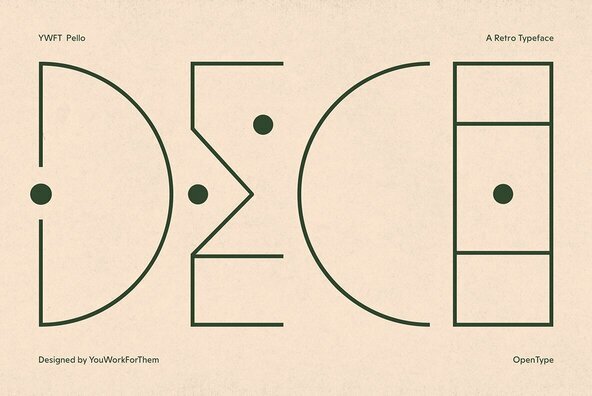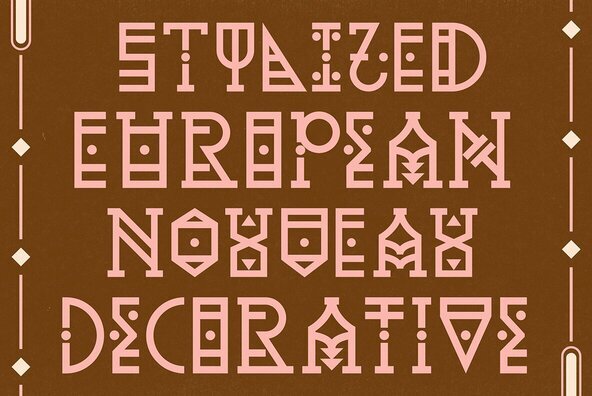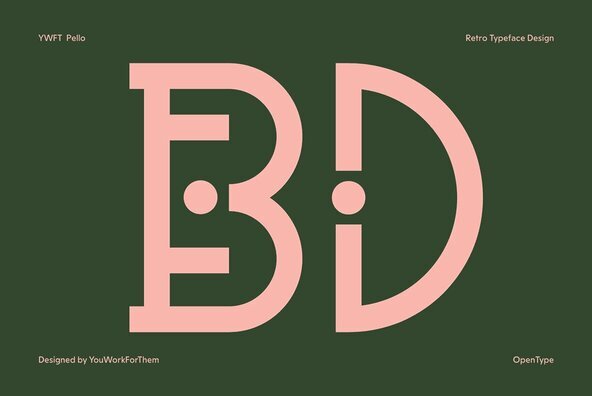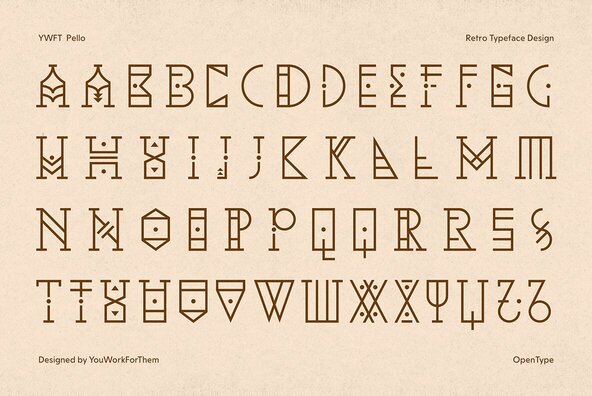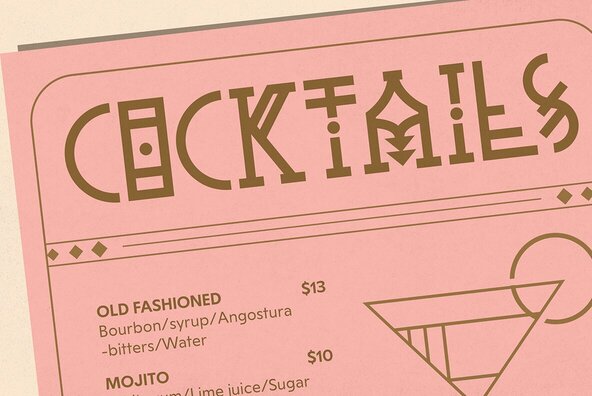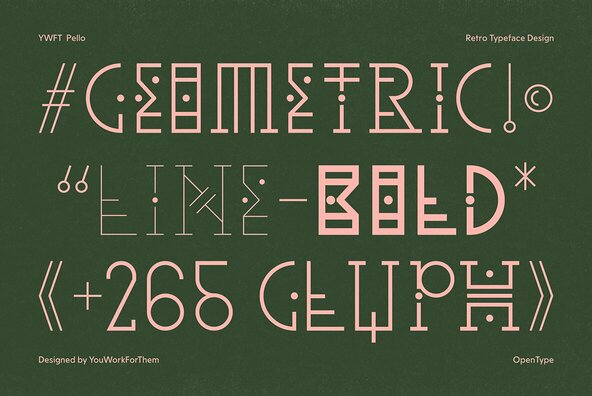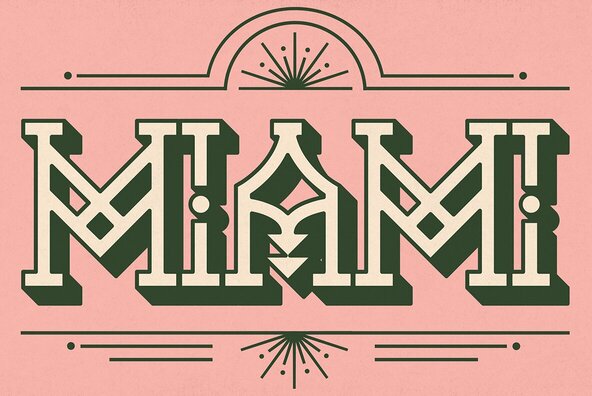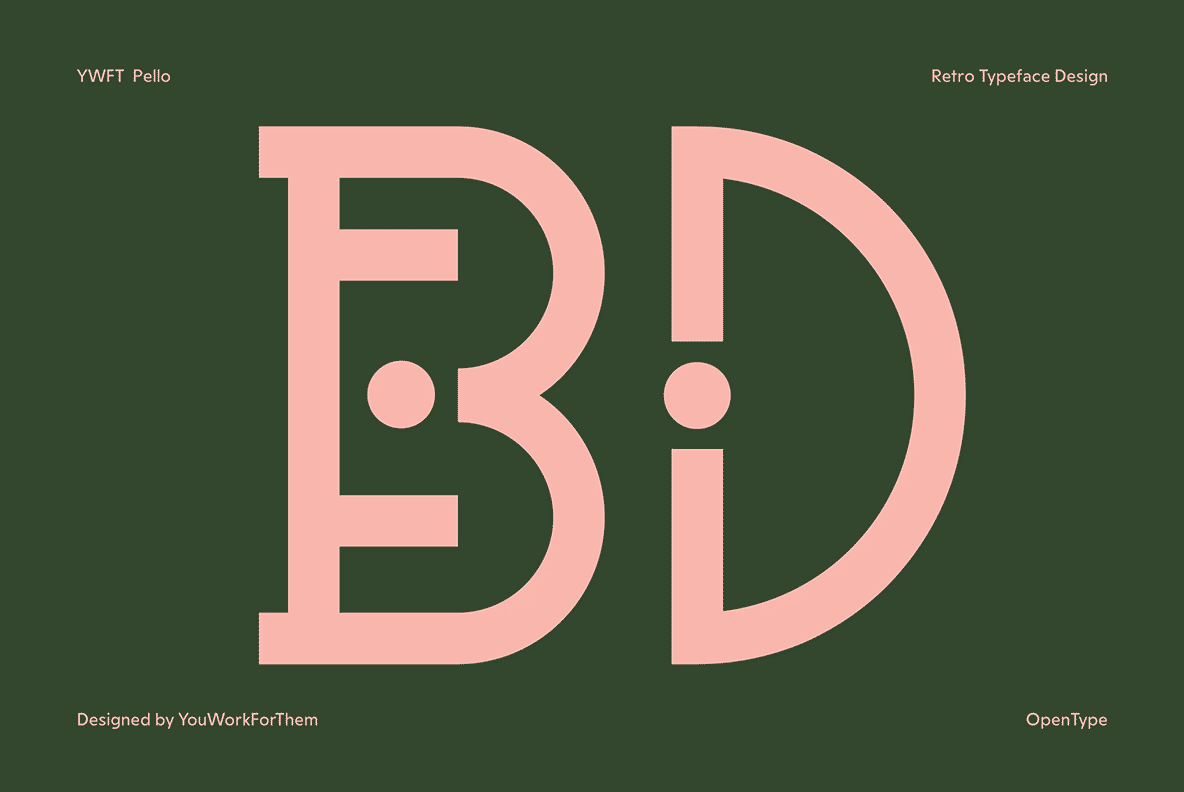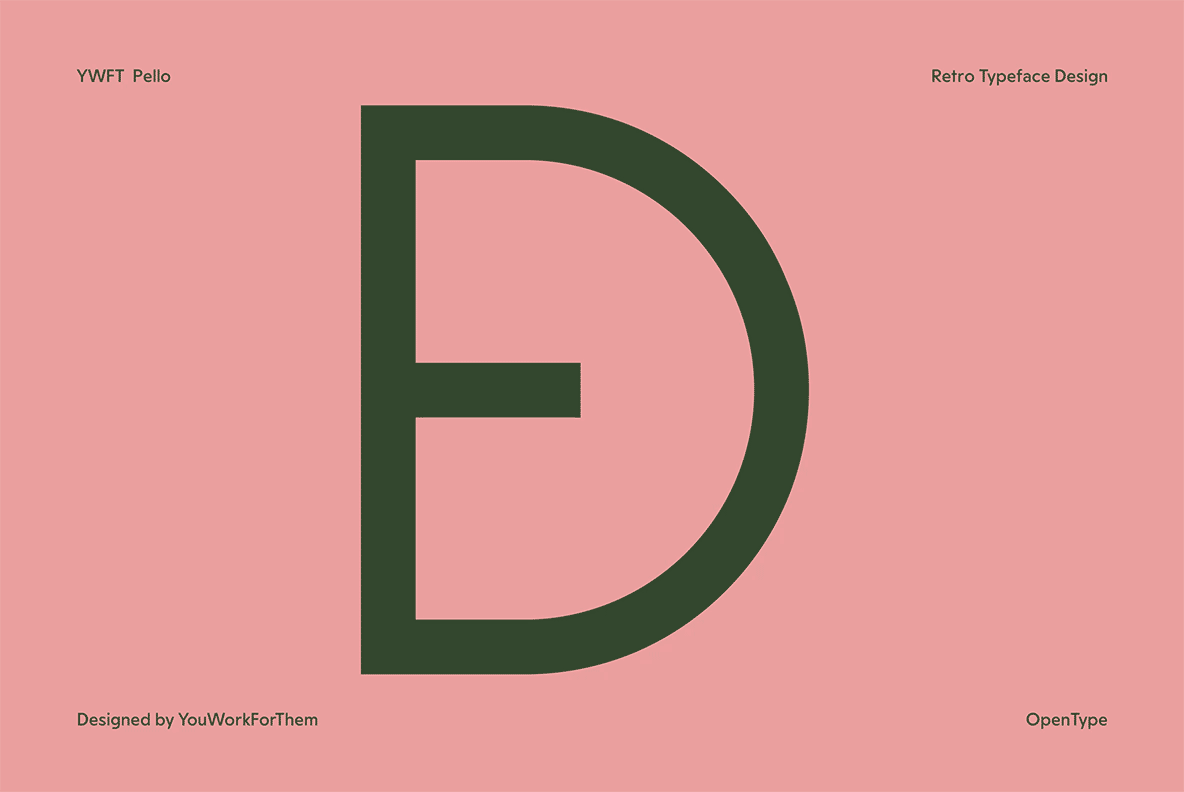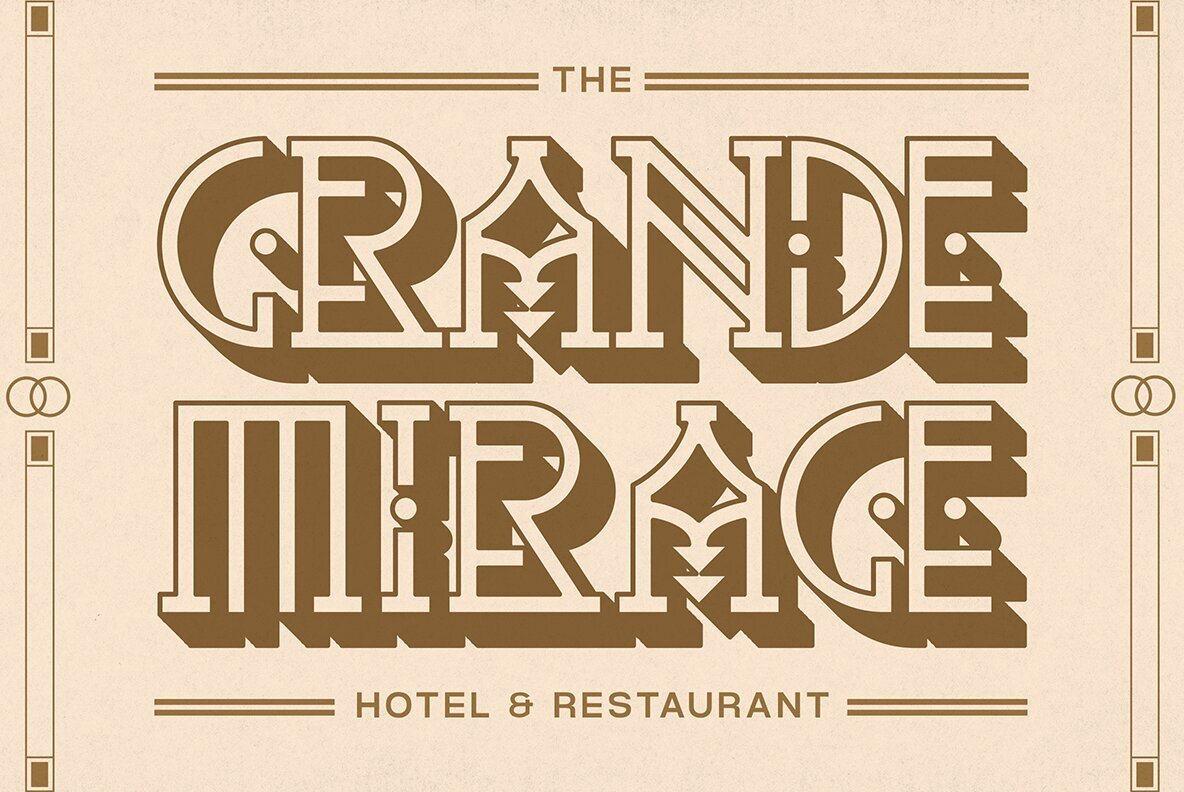
YWFT Pello
At first glance, YWFT Pello might appear to be something from the tonalpohualli, and may inspire a pilgrimage to Teotihuacán. However, after a few moments (and perhaps a quick sacrifice to Quetzalcoatl for good measure), you should begin to see the geometric, modern style that lurks within the angles of this incredible new YouWorkForThem exclusive. YWFT Pello has three weights (light, regular and bold), includes Opentype features like contextual alternates, fractions, and ligatures, and contains 265 glyph designs. With each new day, you'll notice more art nouveau/deco touches within YWFT Pello's expansive corners, and perhaps some macho Latin and posh European styles as well. Designed by YouWorkForThem.